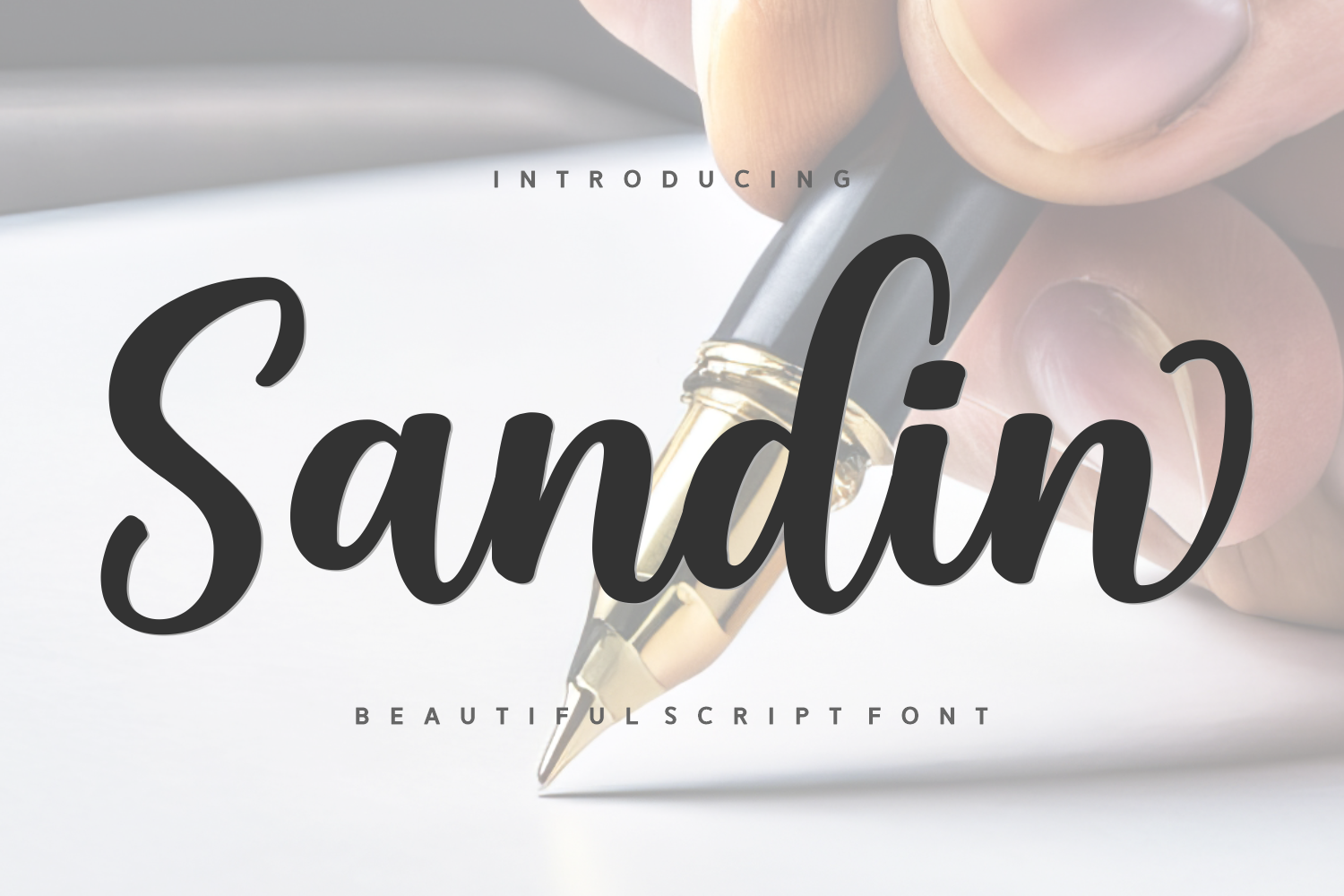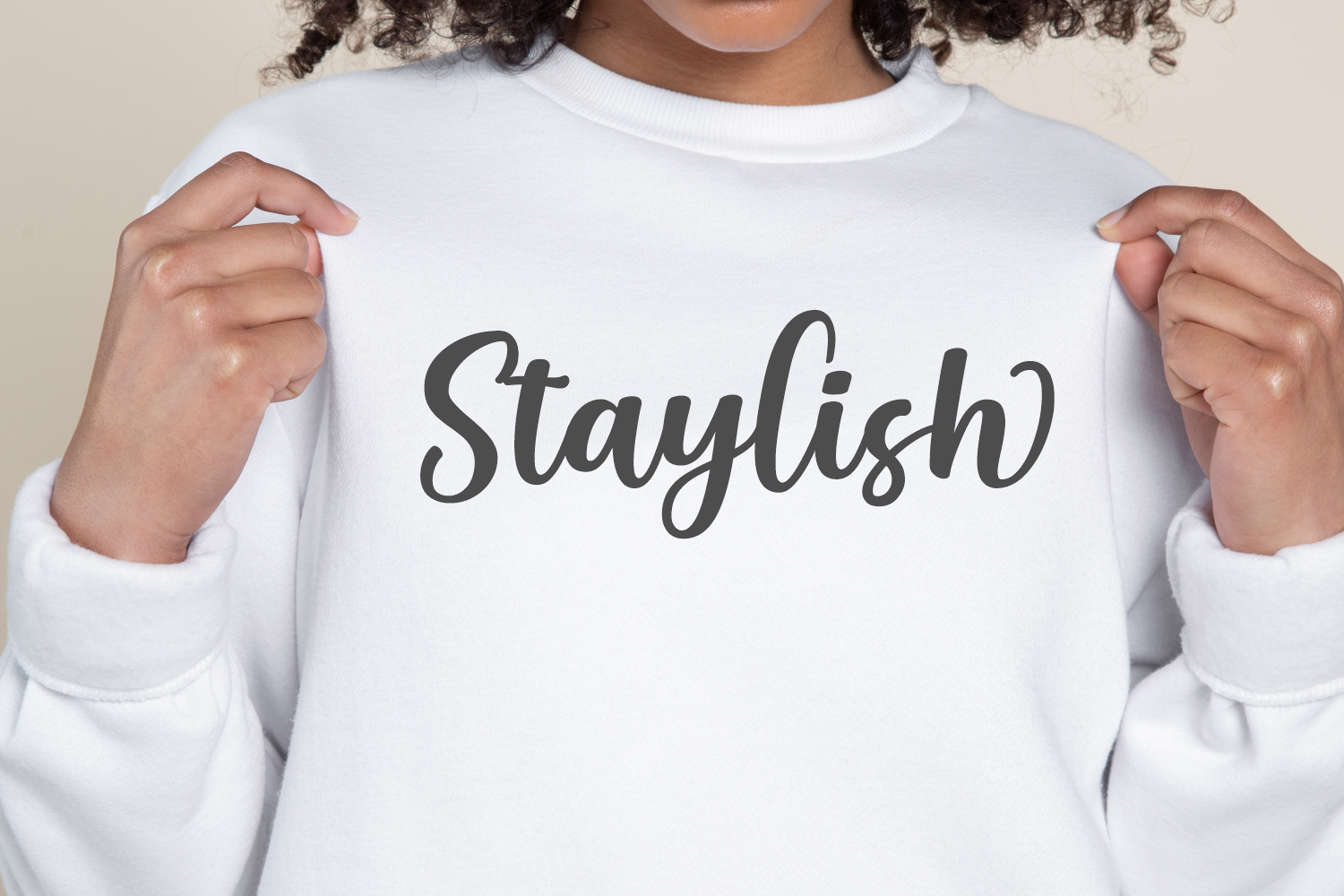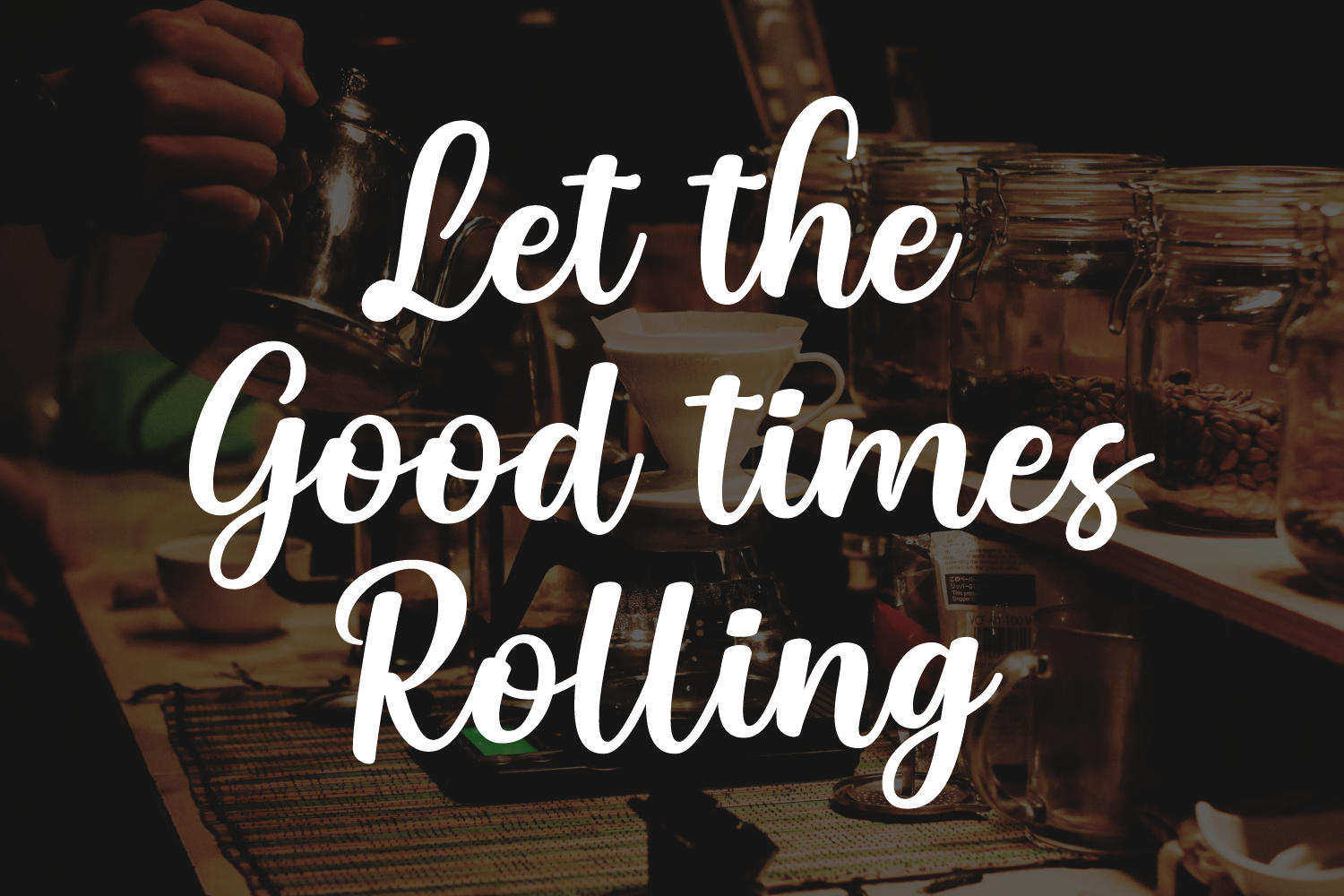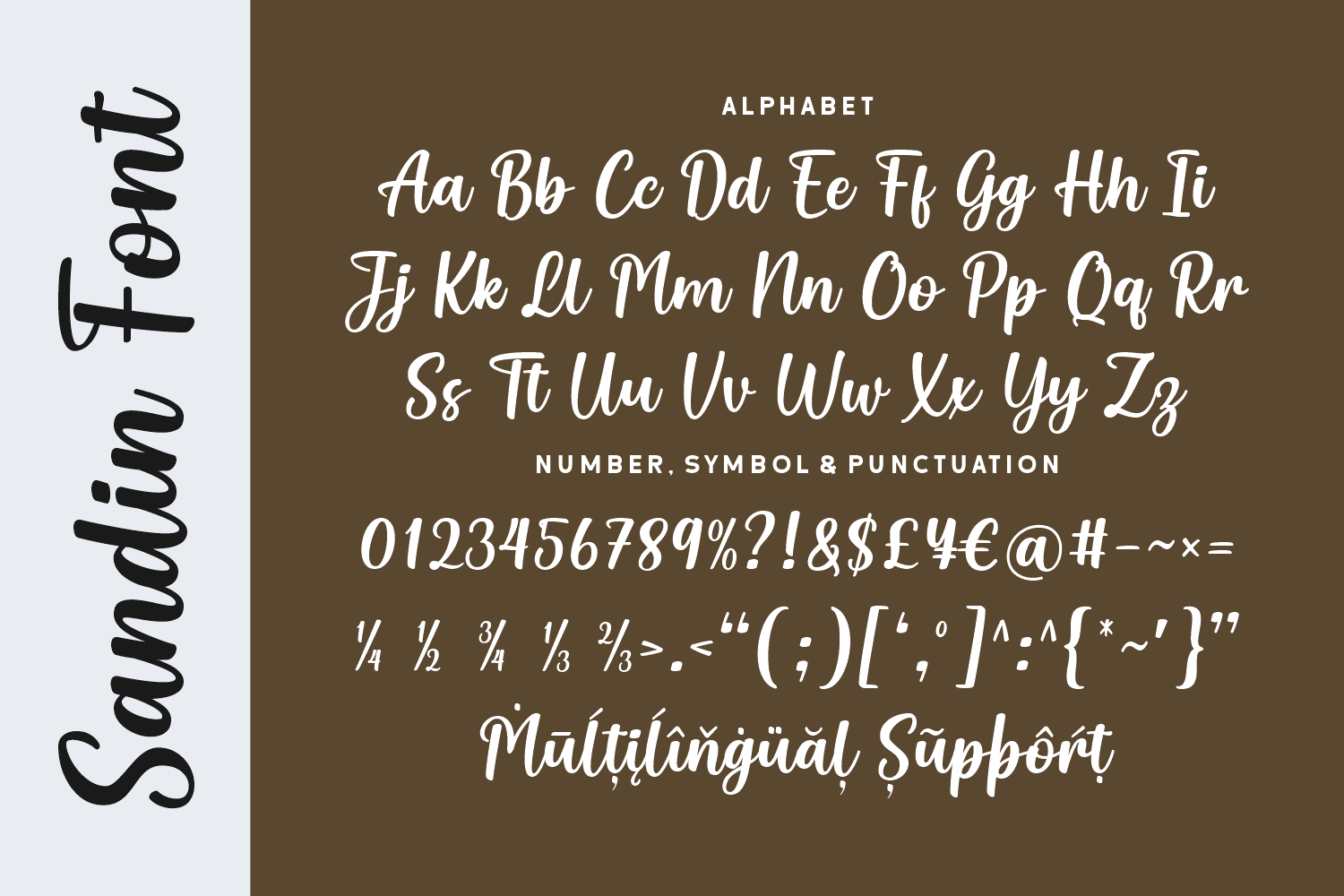
Sandin is a beautifully bold handwritten script font that blends modern brush styling with friendly curves and fluid strokes.
Its well-balanced letterforms offer both clarity and character, while the multilingual support and subtle stylistic flair ensure it's as versatile as it is charming.